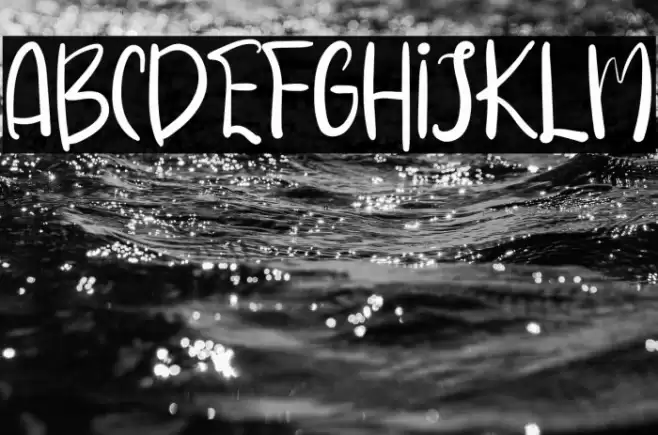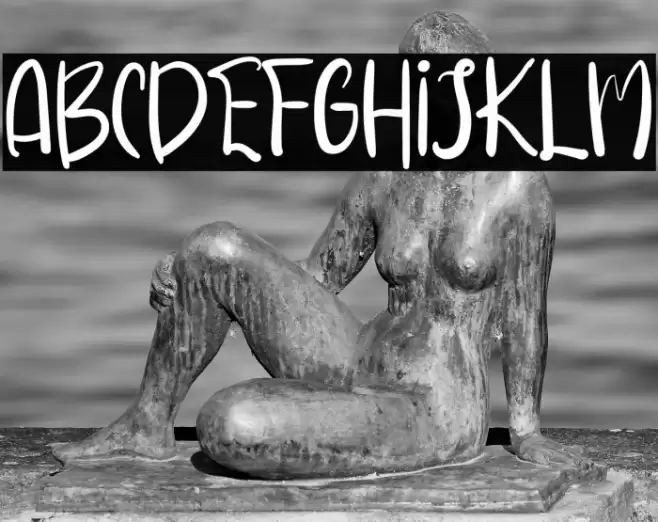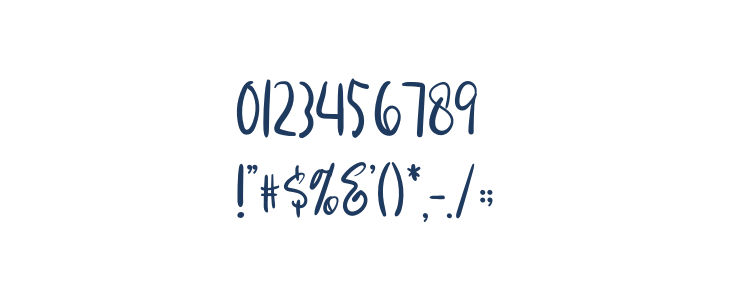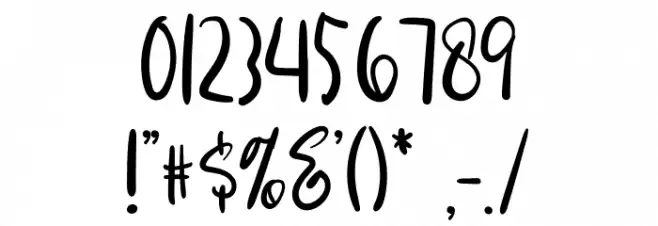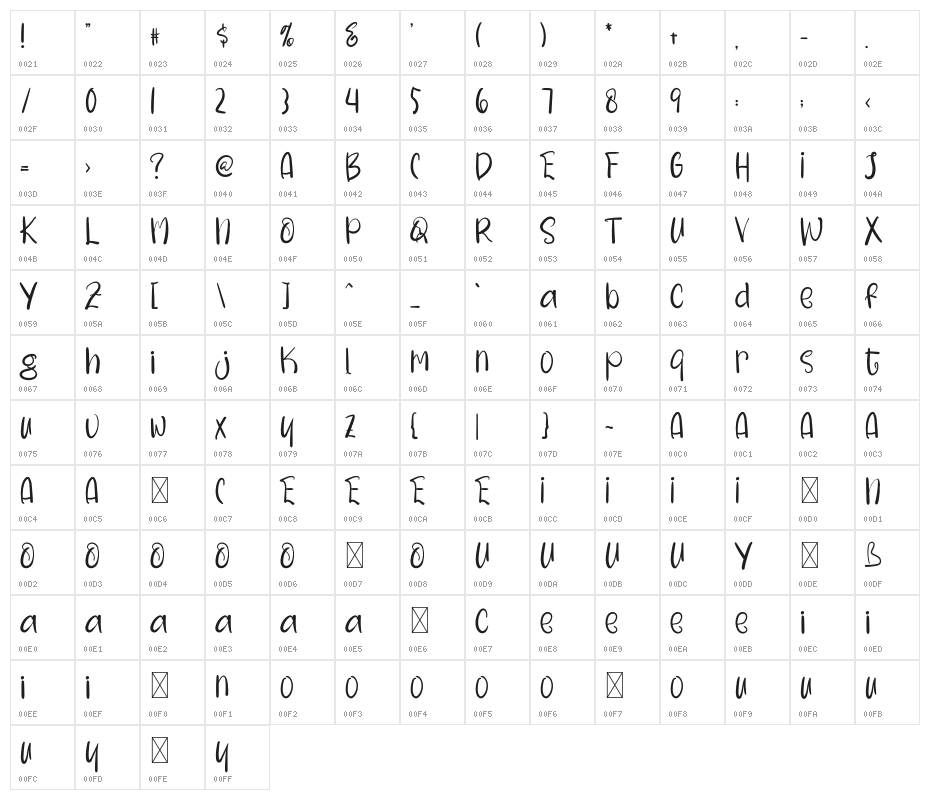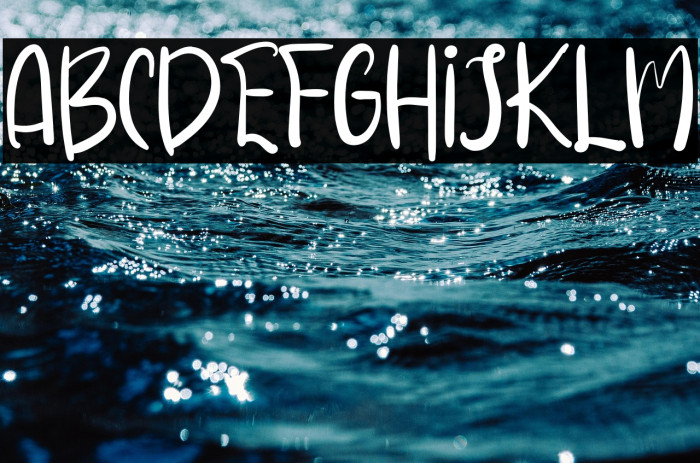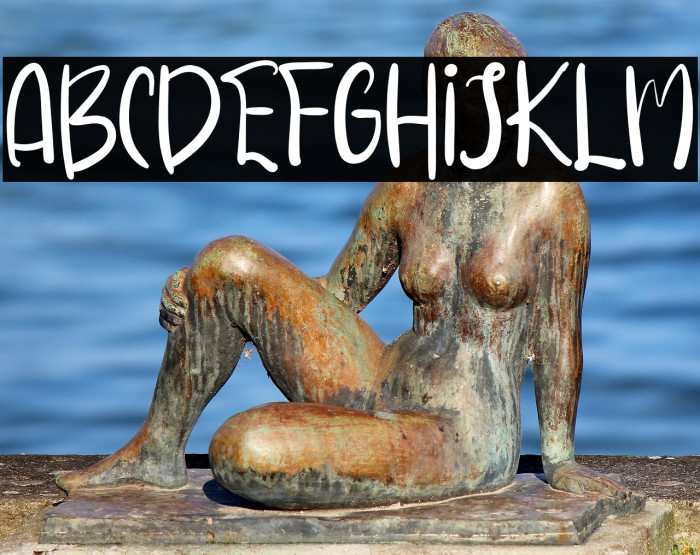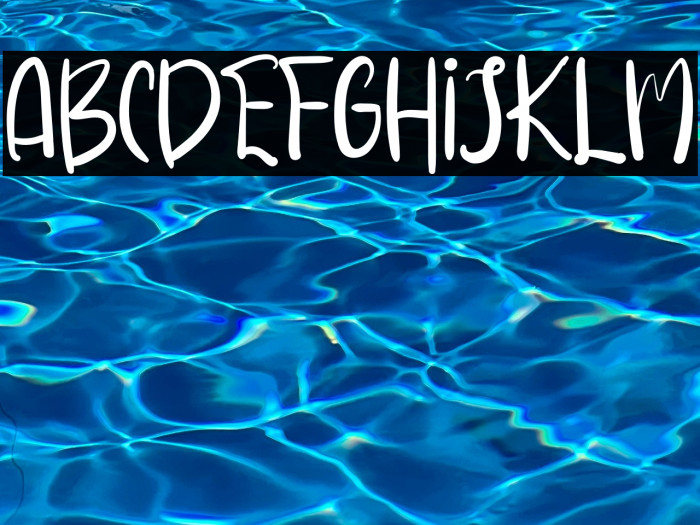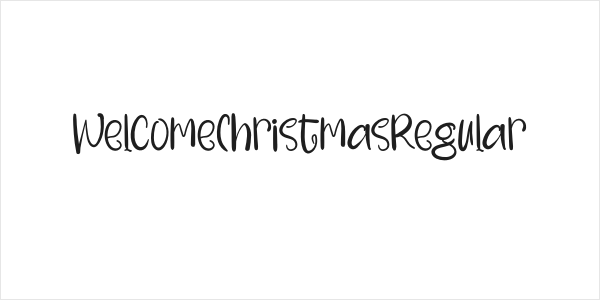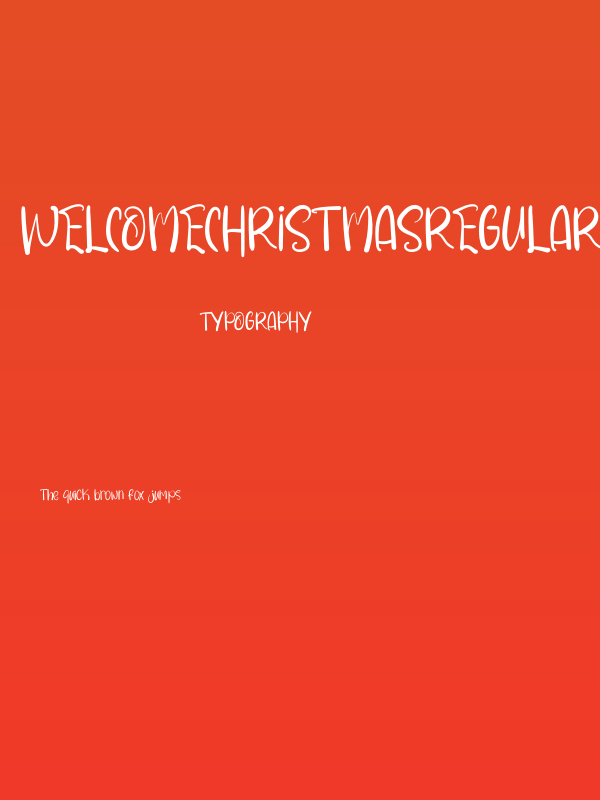
WelcomeChristmasRegular Font
WelcomeChristmasRegular Description
This font features a playful and whimsical style, characterized by its handwritten appearance. The letters are slightly slanted, giving a casual and friendly vibe. The strokes are consistent in width, providing a uniform look across all characters. The uppercase letters are bold and prominent, while the lowercase letters maintain a similar style with a slightly smaller size. Numbers and special characters are designed to match the overall playful aesthetic, making them suitable for creative and informal projects. The font's unique style is perfect for adding a touch of personality to any design.
A playful, handwritten font with a whimsical and casual style from Uncategorized fonts.
- Proposed Projects: Ideal for holiday cards, invitations, children's book covers, and playful branding projects.
- Use Case: Headlines, Logos, Invitations